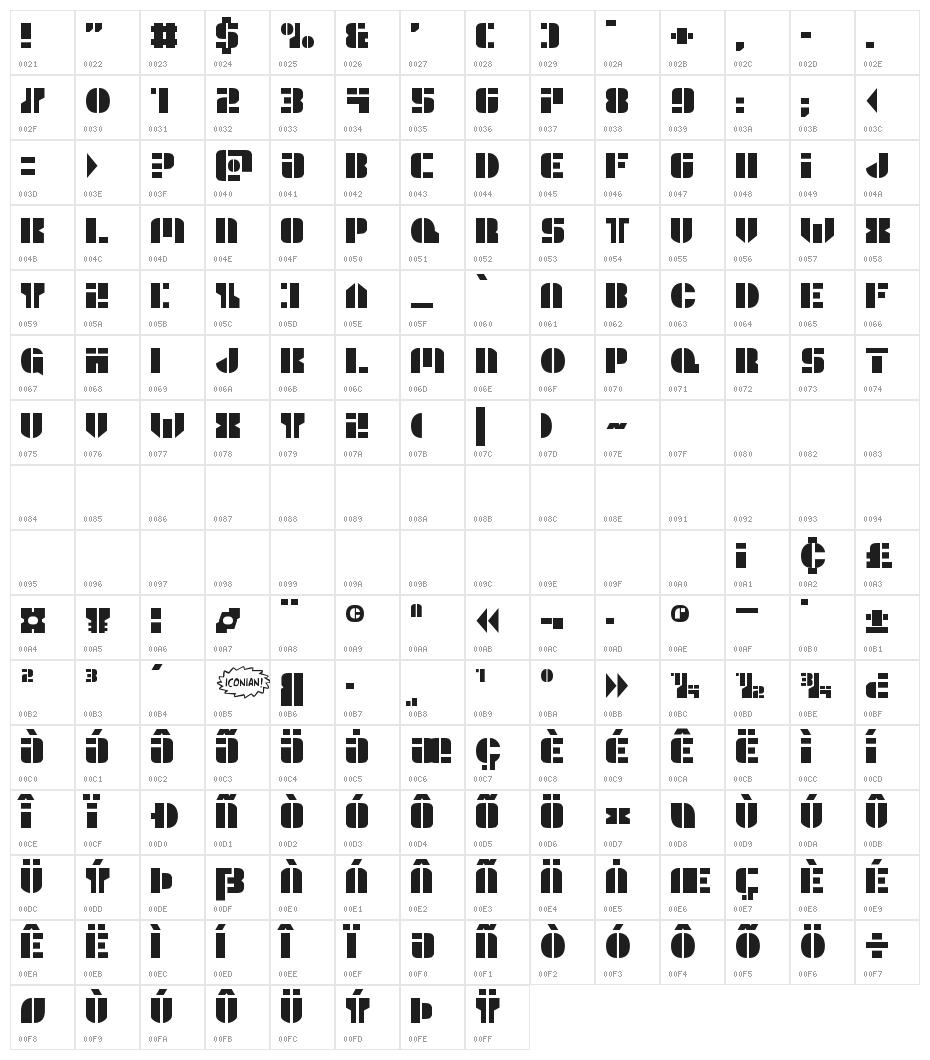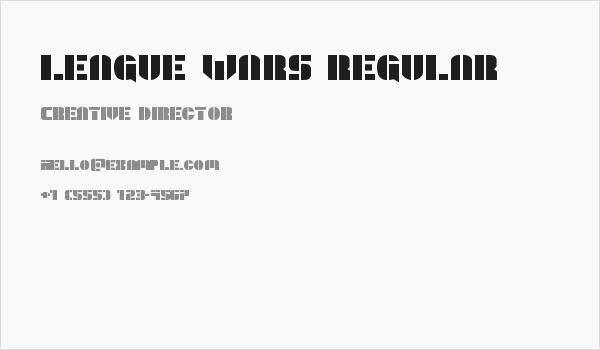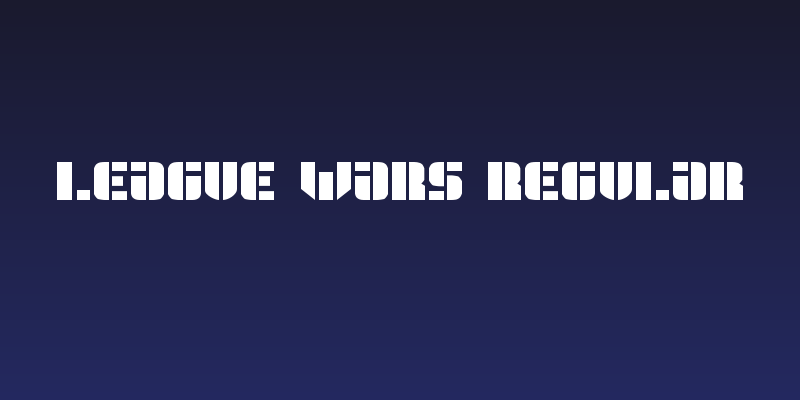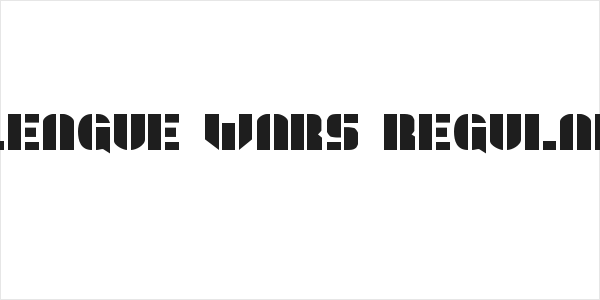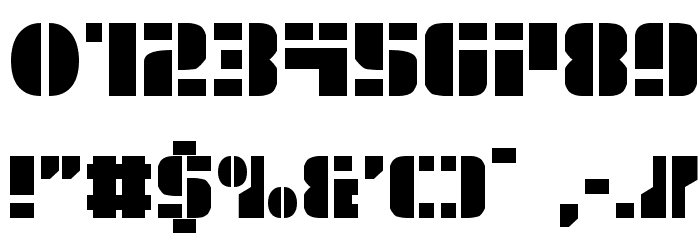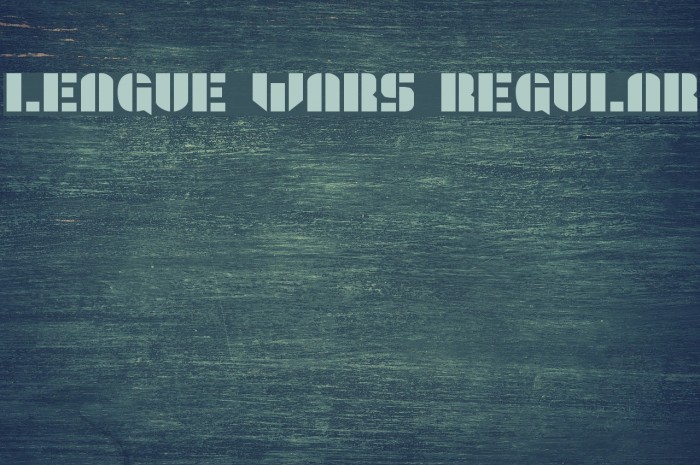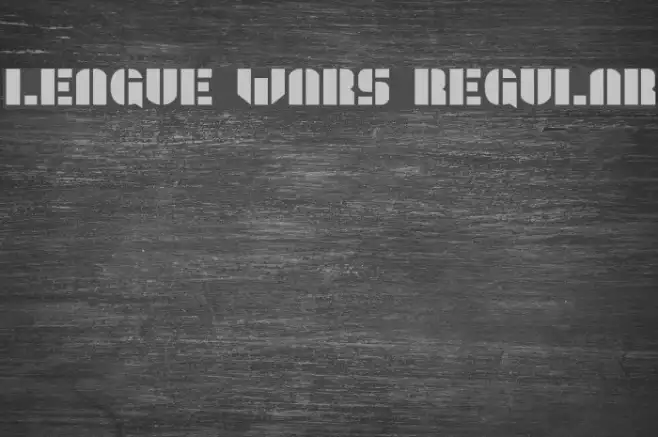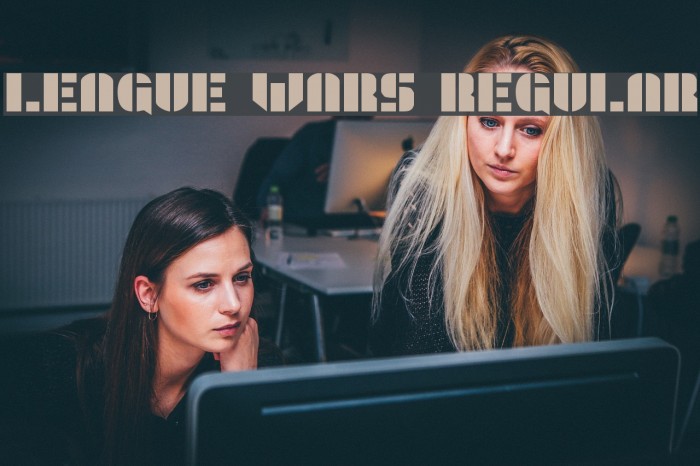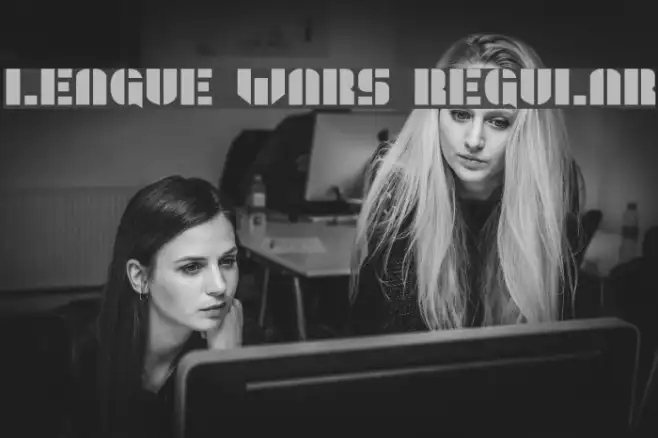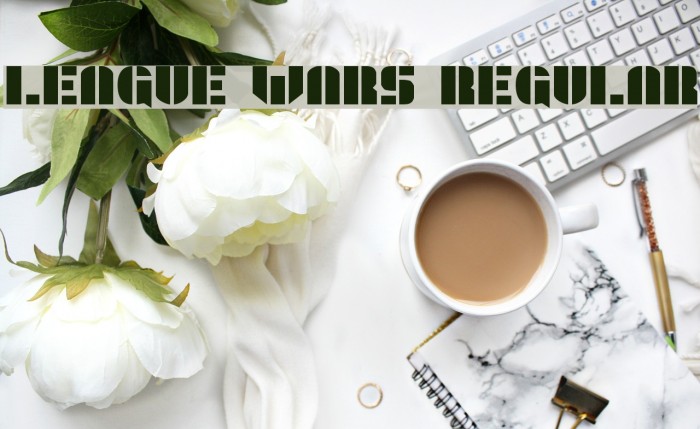
League Wars Regular Font
League Wars Regular Description
This font features a bold and geometric design, characterized by its blocky and angular letterforms. The characters are constructed with solid, thick strokes that create a strong visual impact. The font's unique style is achieved through the use of sharp angles and straight lines, giving it a futuristic and industrial feel. The uppercase and lowercase letters maintain a consistent width, contributing to a uniform appearance. The numbers and special characters follow the same design principles, ensuring cohesion across all elements. This font's distinct look makes it suitable for projects that require a modern and assertive aesthetic.
| Proposed Projects | Ideal for branding, posters, video game graphics, and sci-fi themed designs. |